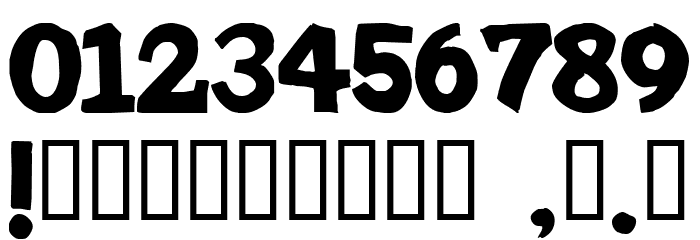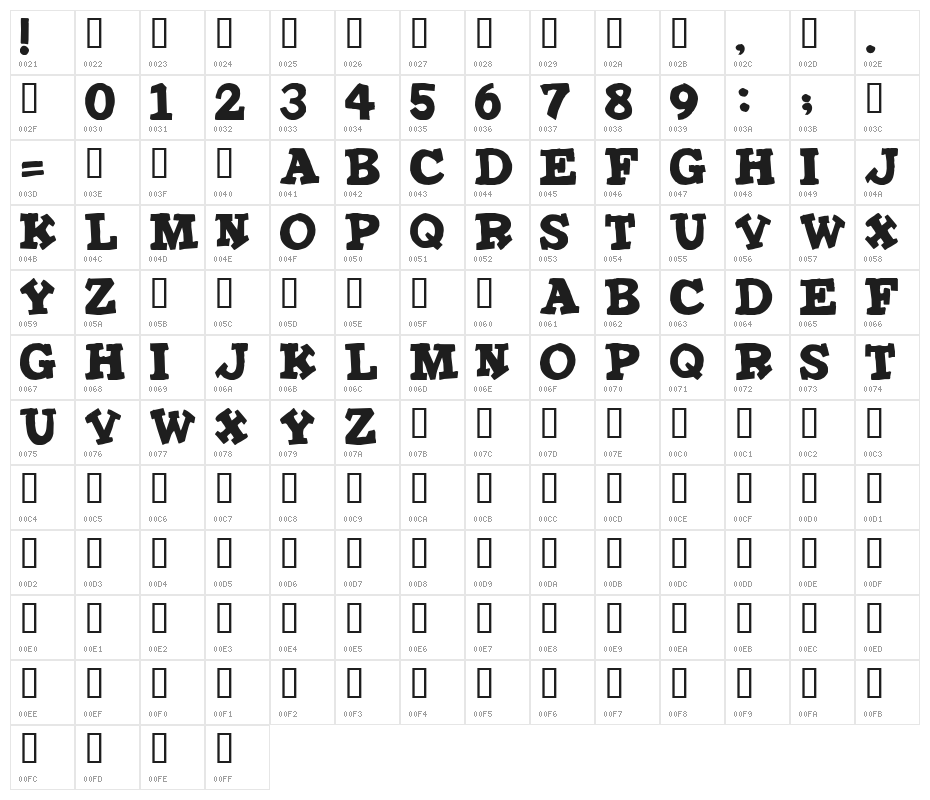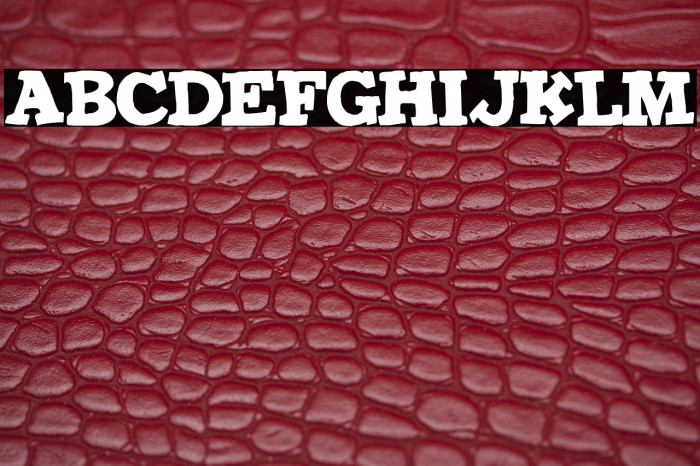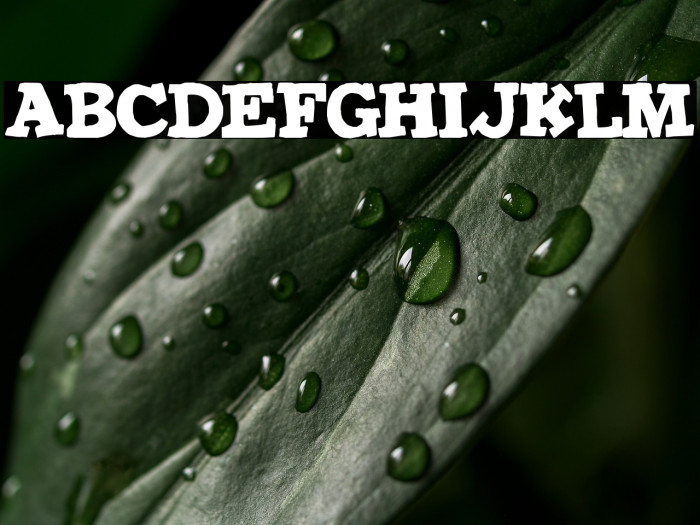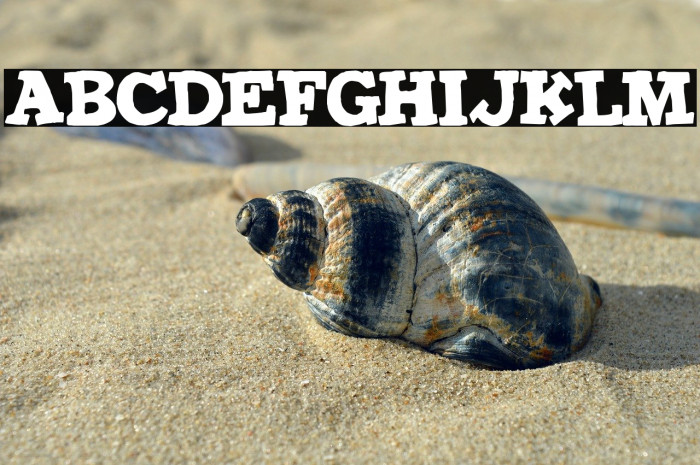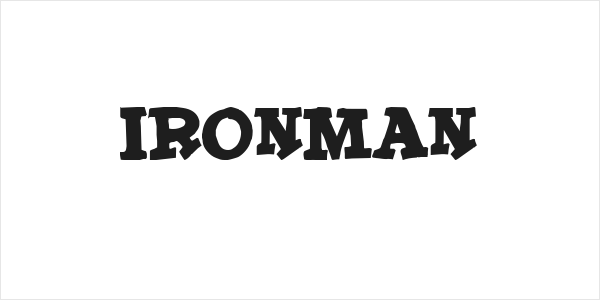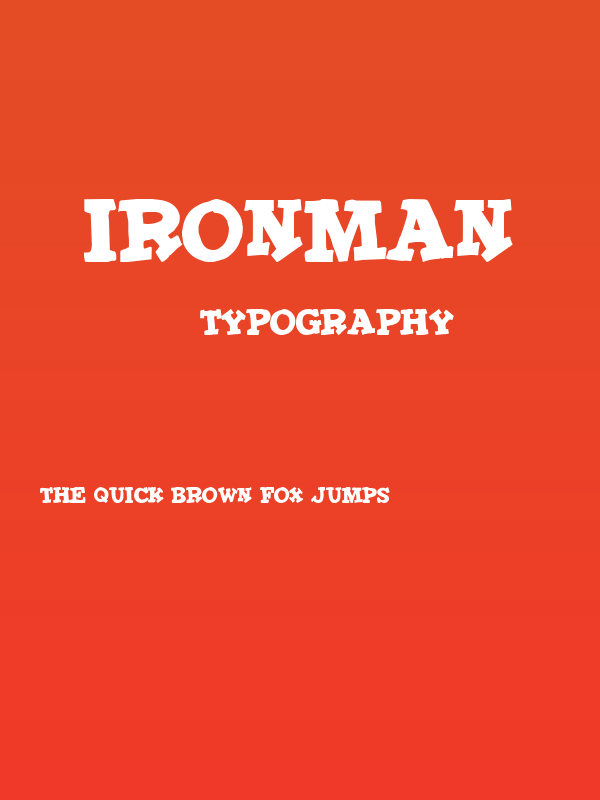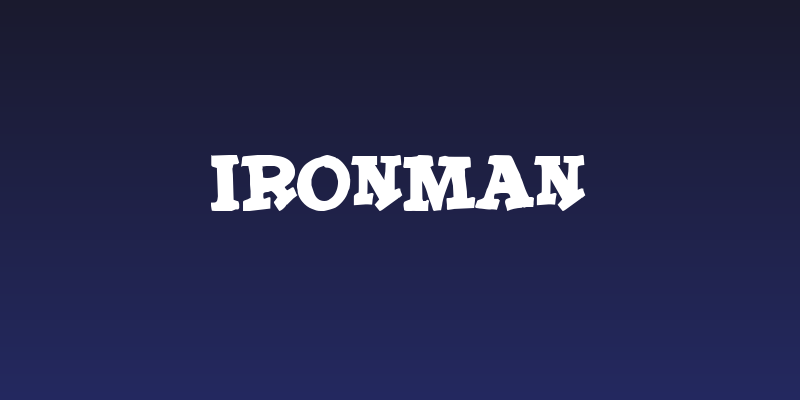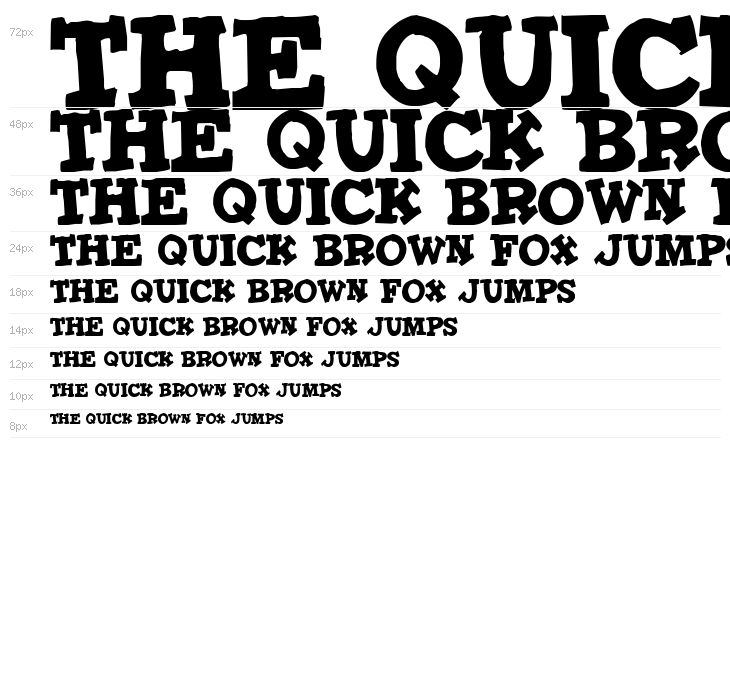
IronMan Font
IronMan Description
This font features a bold and playful design with a strong presence. The letters have a slightly irregular, hand-drawn appearance, giving them a whimsical and dynamic feel. The strokes are thick and consistent, contributing to a robust and impactful look. The characters are well-spaced, ensuring readability while maintaining a lively aesthetic. The numbers and special characters follow the same bold style, making them suitable for attention-grabbing designs. This font is ideal for projects that require a fun and energetic vibe.
| Overall Style | Playful, Energetic |
| Proposed Projects | Great for children's books, comic strips, posters, and playful branding. |